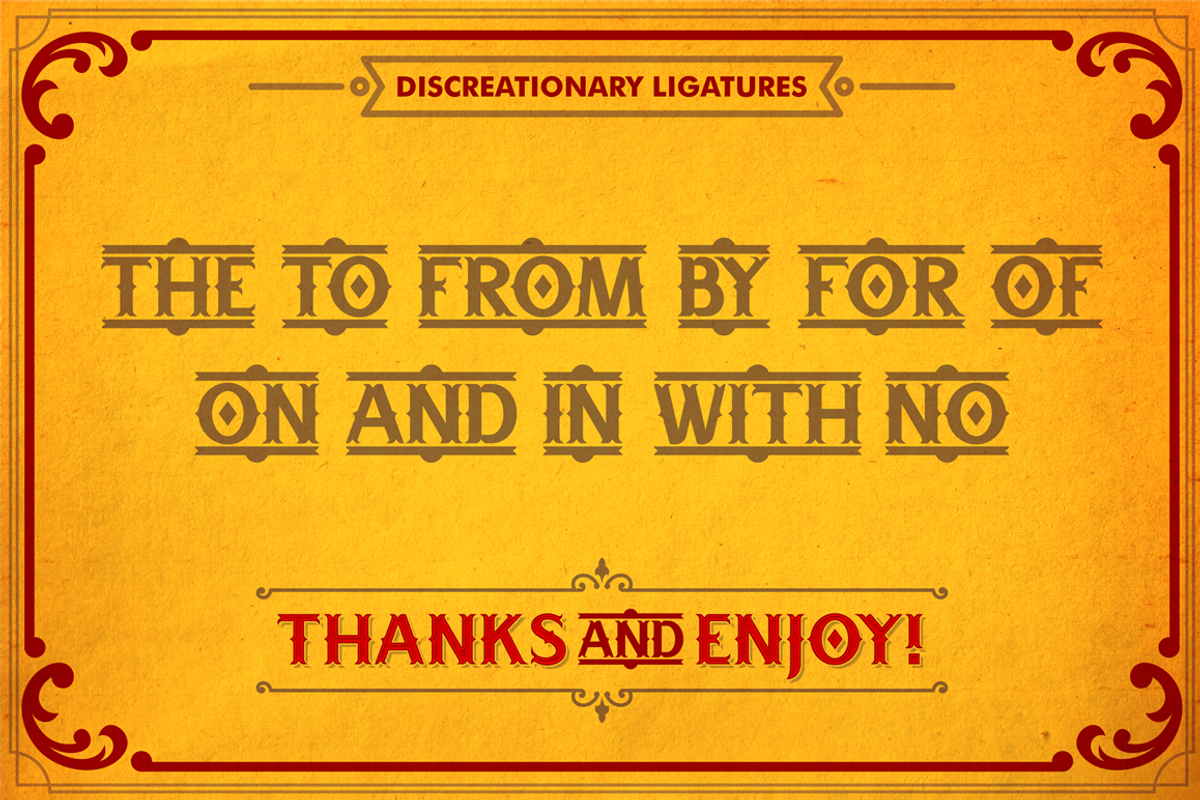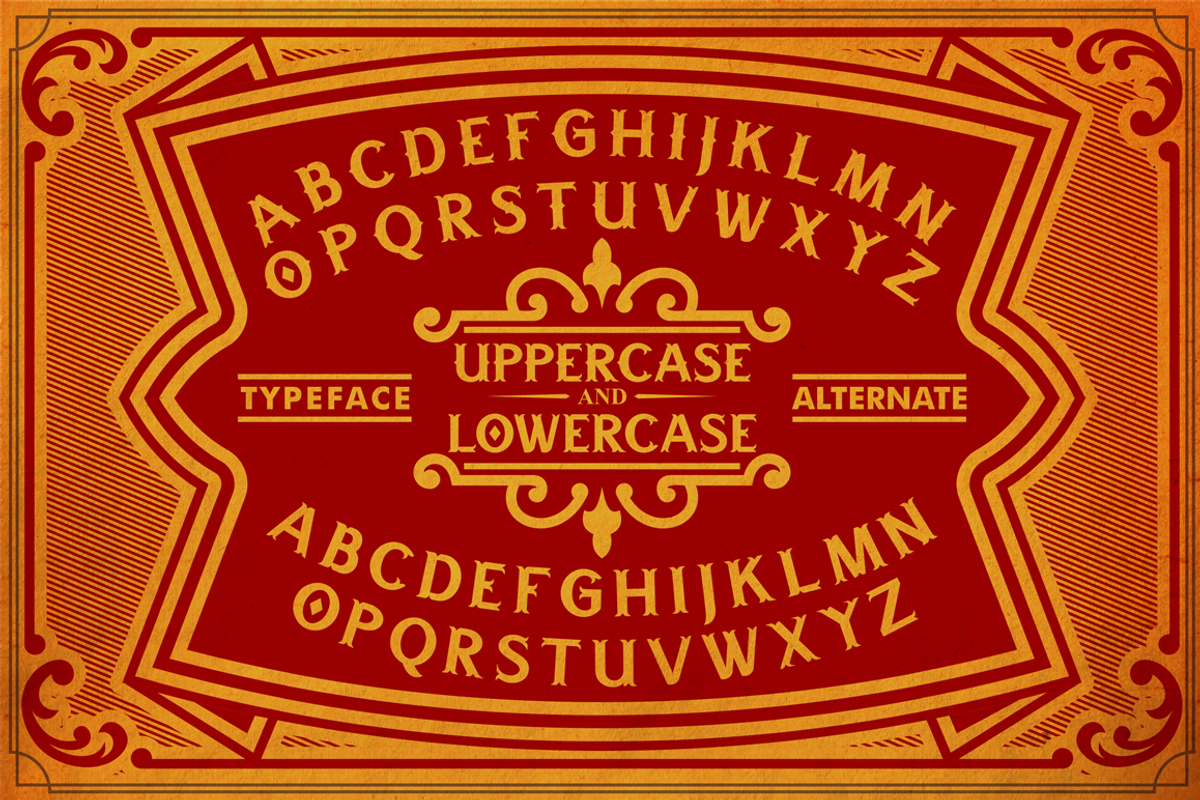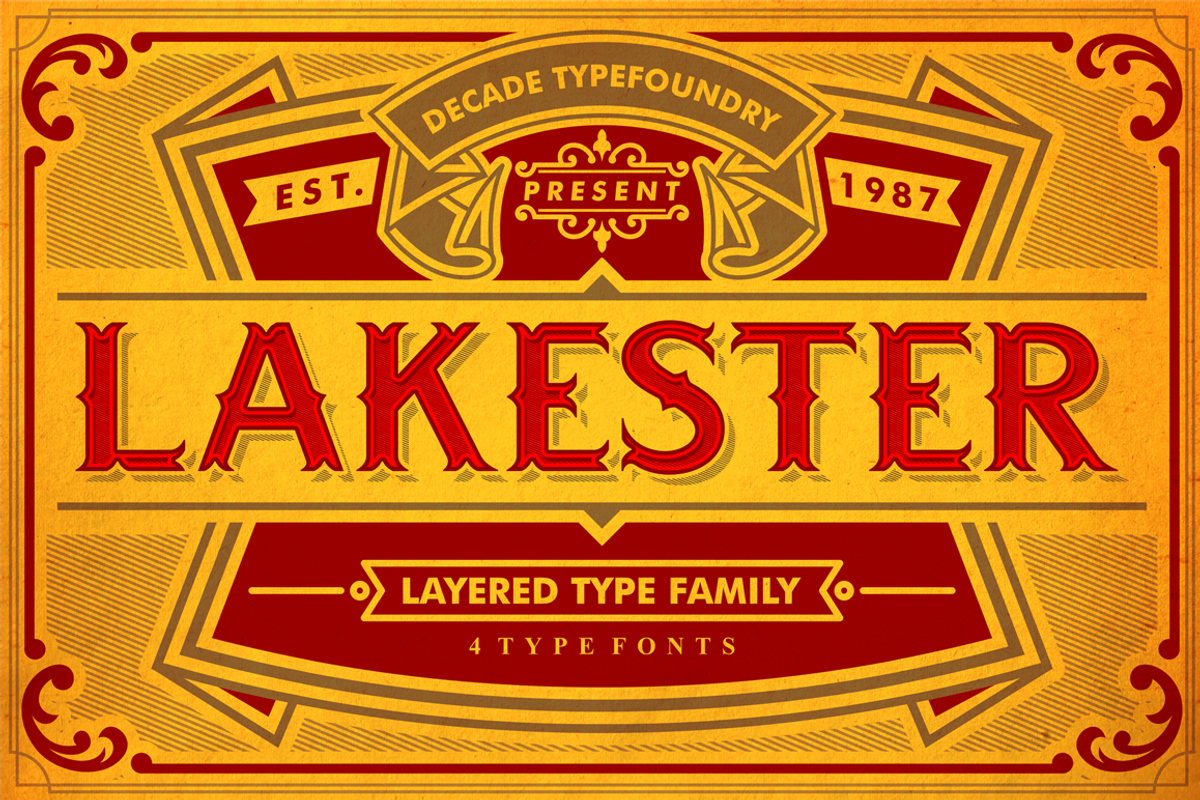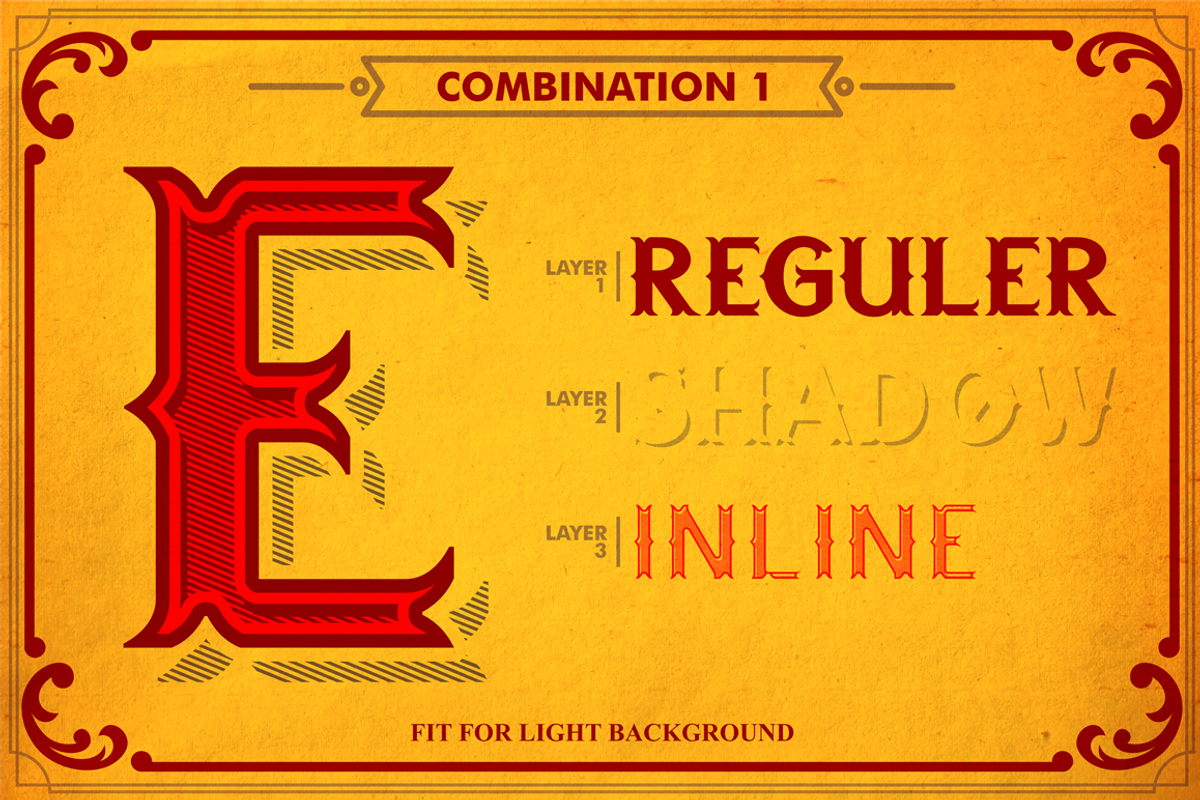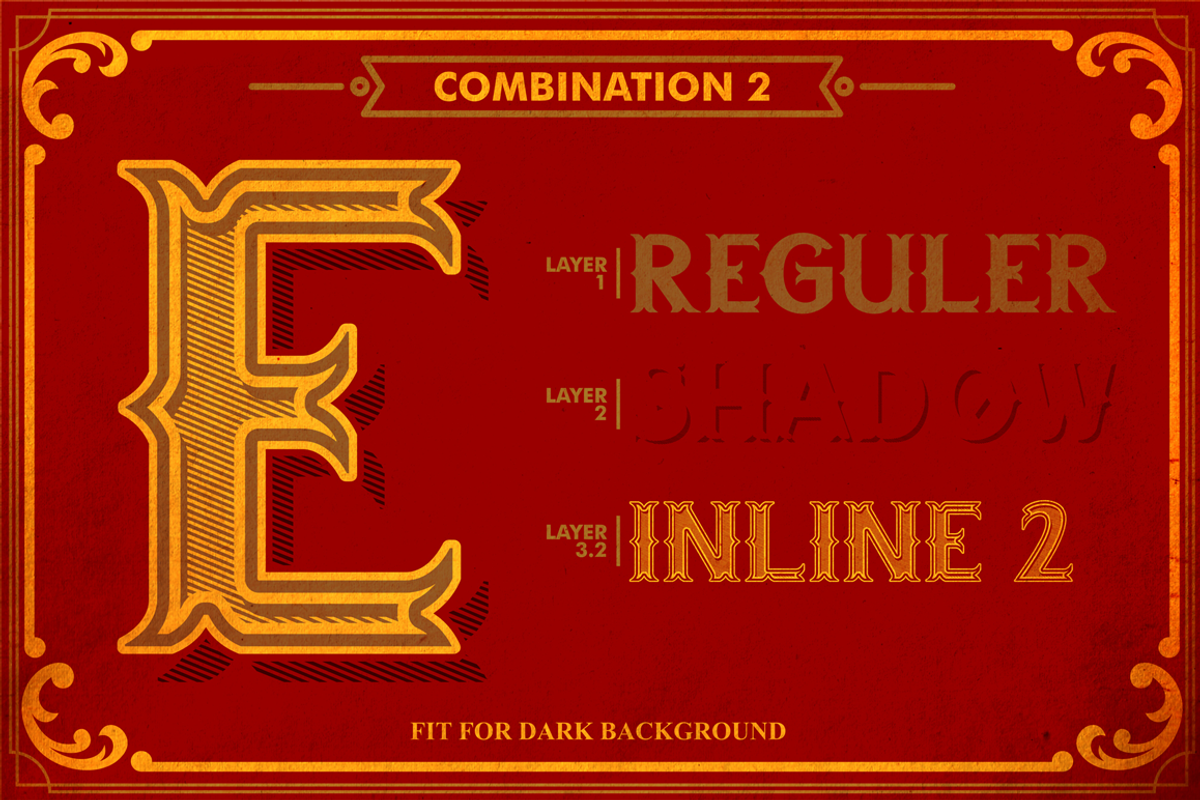
LAKESTER FONT FAMILY
LAKESTER FONT FAMILY by Alternate Studio is a font selected for branding, posters, packaging, typography.
- Comes with 4 font system that can be layered to create different effect (regular,shadow,inline,inline 2) .
Why LAKESTER FONT FAMILY is worth a look
LAKESTER FONT FAMILY by Alternate Studio fits naturally into Branding, posters, packaging, typography.